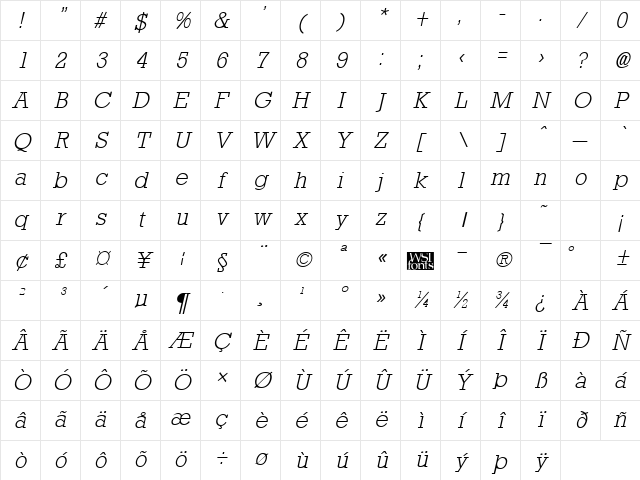
RockneyLight Italic Free Font
RockneyLight Italic
Design Context for RockneyLight
RockneyLight is a composed and adaptable typeface that performs quietly and consistently across a wide range of design contexts. The slanted form adds forward momentum and visual energy. Its slender proportions lend an understated elegance to any composition.
Pro Tip: Use RockneyLight for emphasis, pull quotes, and subheadings where its slanted energy can add rhythm to the layout.